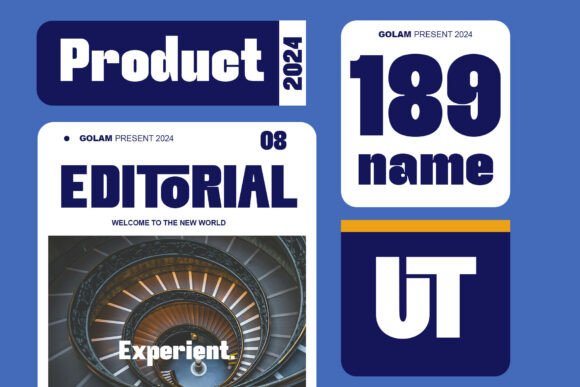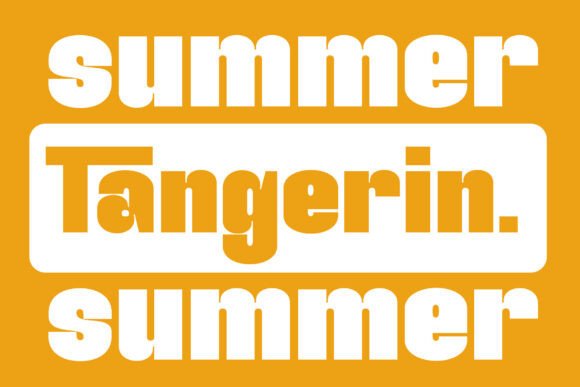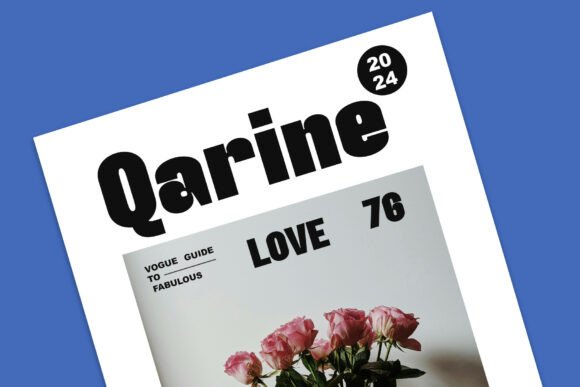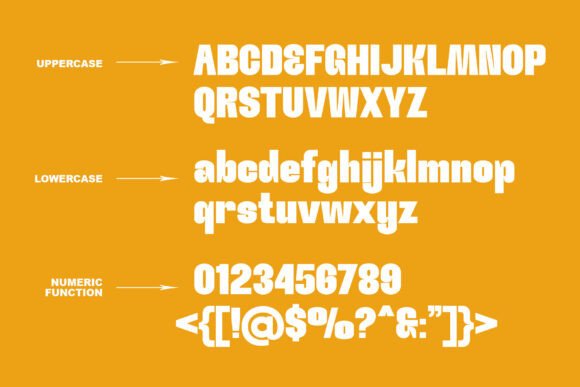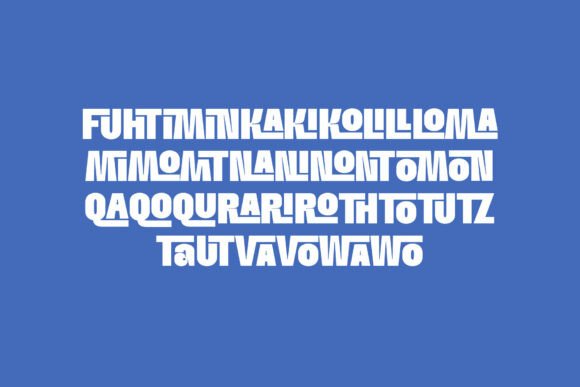
The Power of Golam Font: A Designer’s Best Friend
I’ll never forget the time I was working on a project for a client who needed a bold, eye-catching font to make their brand stand out. I had spent hours scouring the internet for the perfect typeface, but nothing seemed quite right. That was until I stumbled upon the Golam font. With its ultra-bold, chunky structure and clean geometric lines, I knew I had found the one. In this article, I’ll share my experience with Golam, its features, and how to get the most out of this powerful font.
A First Impression: What I Love About Golam
Golam is a game-changer for designers looking for a high-impact display font. Here are some of the things I love about it:
- ✨ Ultra-bold and chunky structure: Golam’s extra-thick letterforms make it perfect for headlines, titles, and statements that demand attention.
- ✅ Clean geometric lines: The font’s sleek lines give it a modern and sophisticated feel that’s perfect for a wide range of projects.
- 🔍 Creative ligatures: Golam’s ligatures, such as the seamless connection between the “G” and “o,” add a touch of artistic flair to your designs.
- 🌎 Multilingual support: Golam supports multiple languages, making it a great choice for global brands or projects with international appeal.
While Golam is an amazing font, there are a few things to keep in mind:
- 🤔 Limited use cases: Due to its bold nature, Golam works best for headlines, titles, and short phrases. It may not be the best choice for body text or longer content.
- ⚠️ Legibility at small sizes: Golam’s ultra-bold structure can make it difficult to read at very small sizes. Be sure to test it at different sizes to ensure it’s legible for your project.
The Story Behind Golam
Golam was designed with the goal of creating a bold and attention-grabbing font that would work well for headlines and titles. The designer wanted to create a font that was both modern and industrial, with a clean and geometric feel. The result is a font that’s perfect for making a statement.
- Q: Is Golam a script font?
- A: No, Golam is a sans-serif display font.